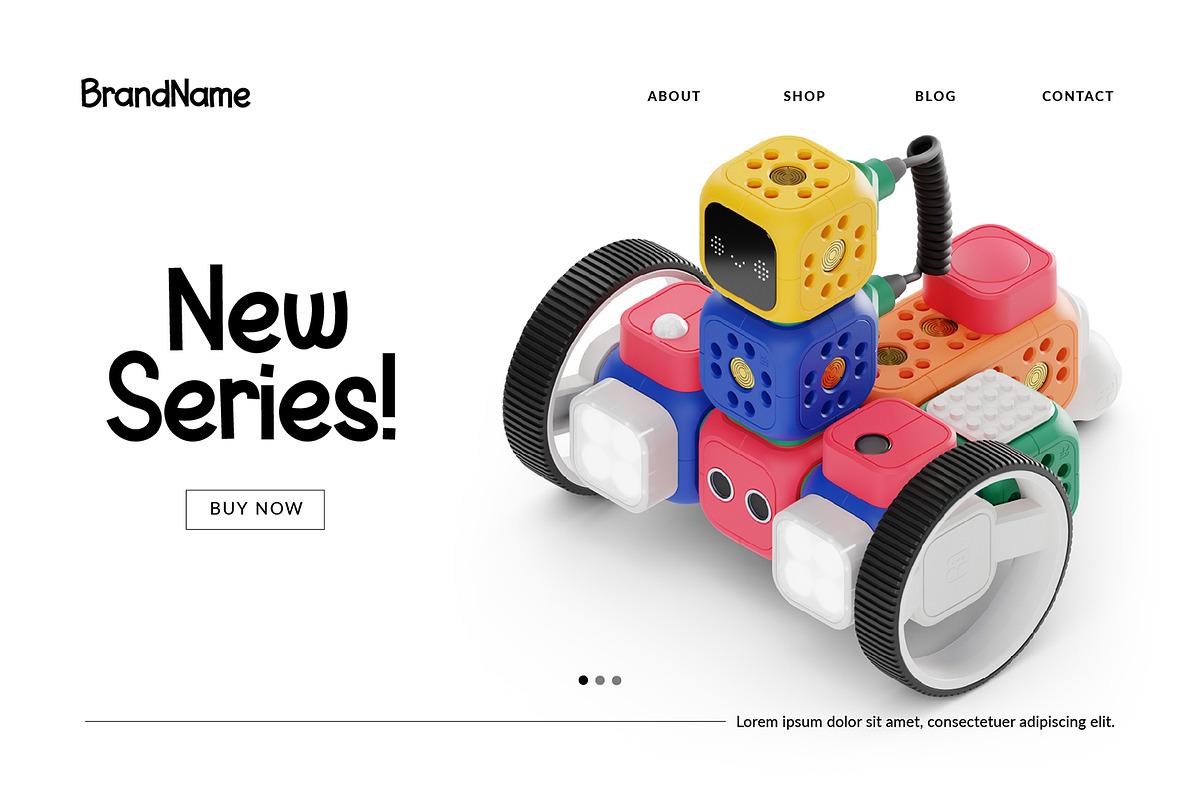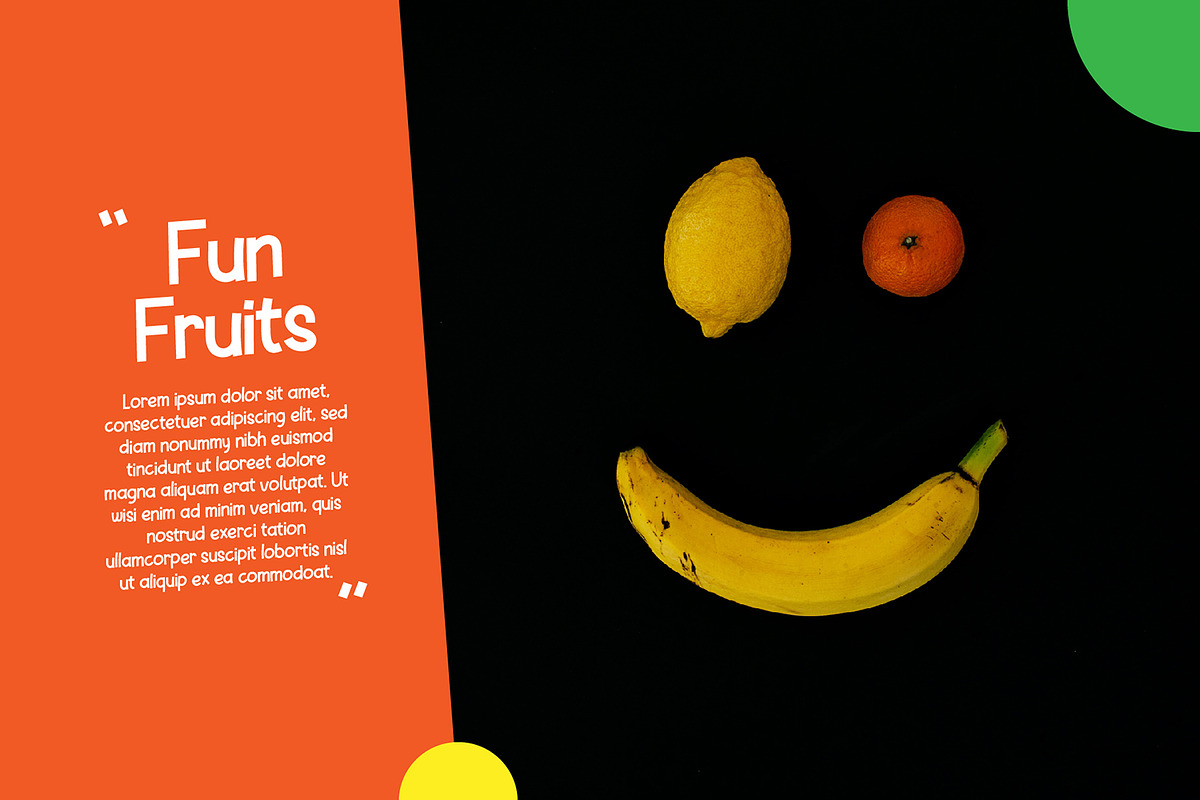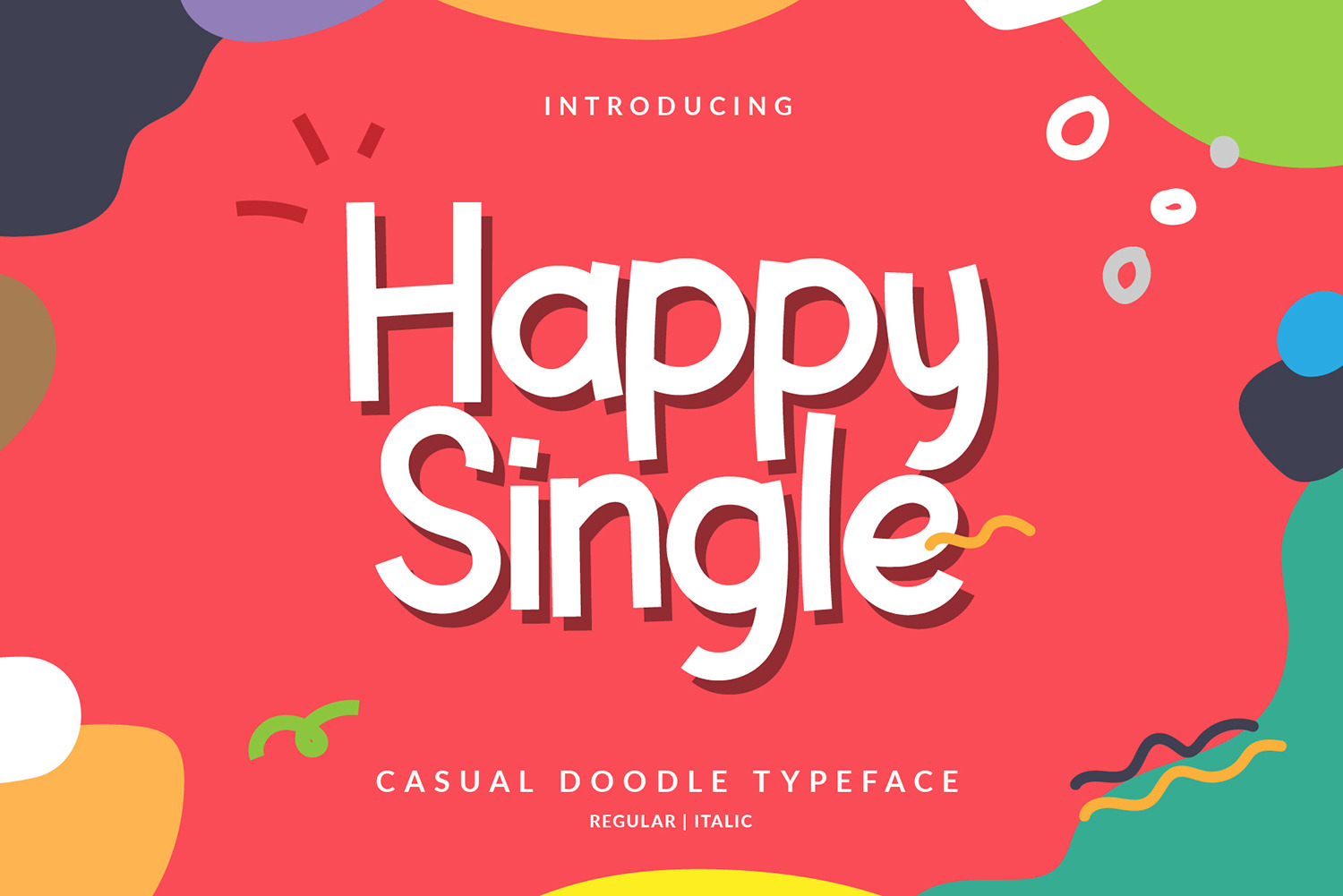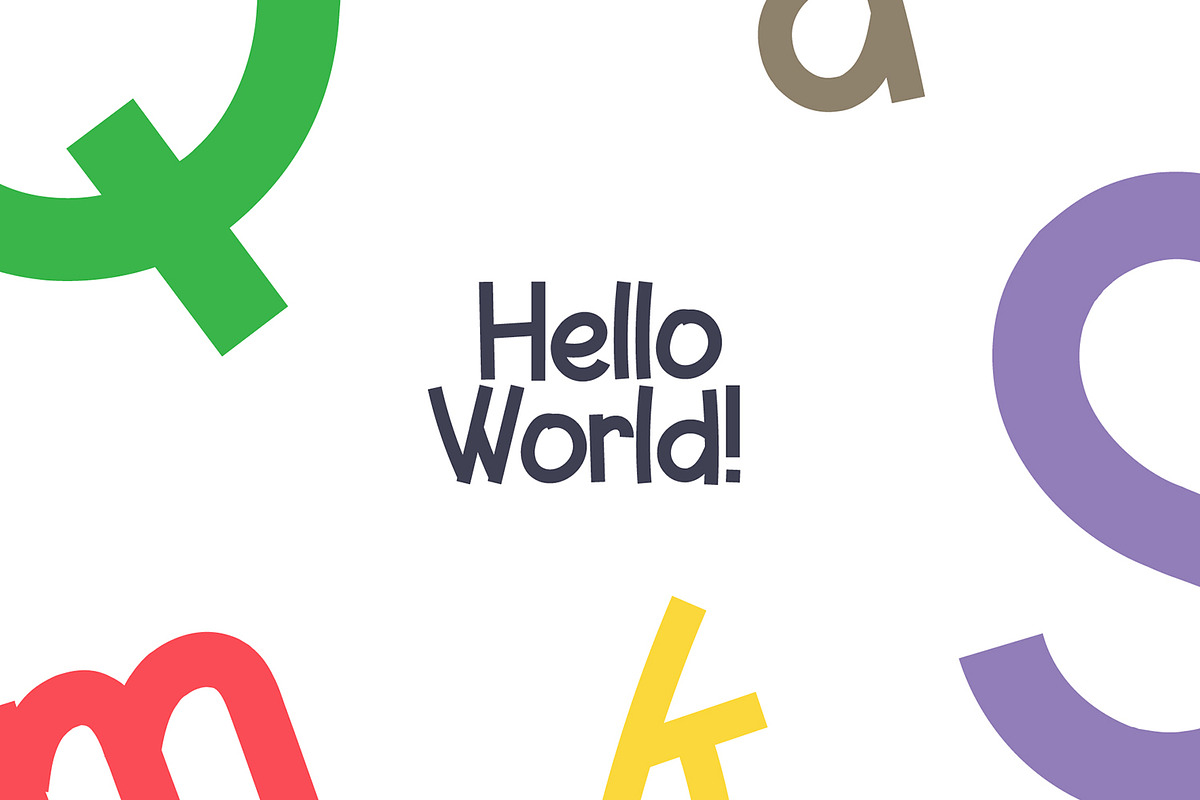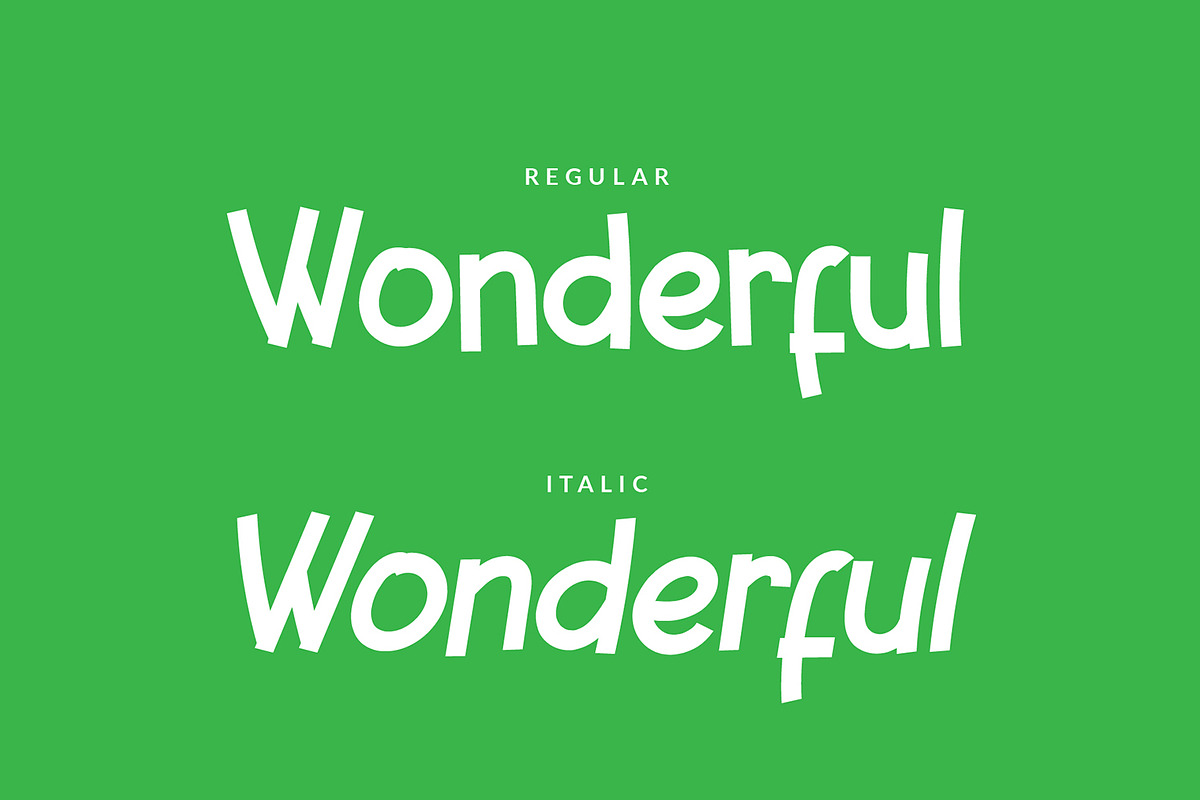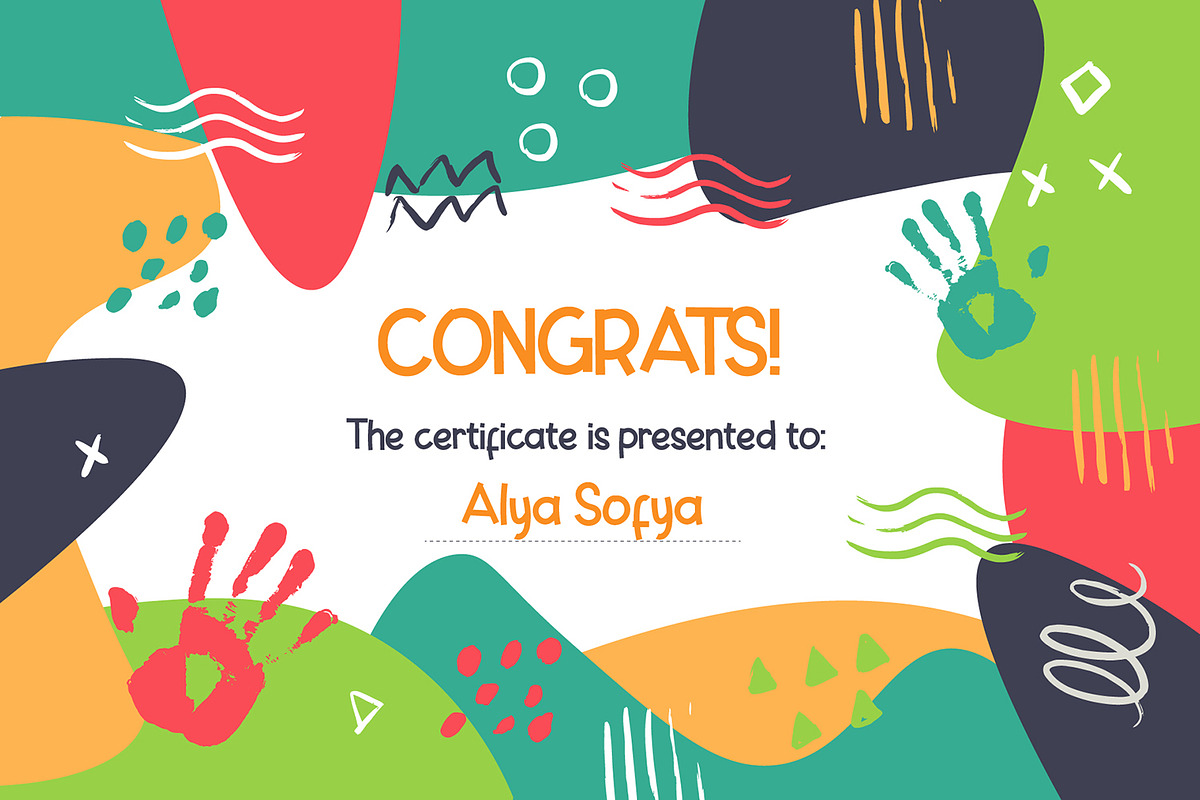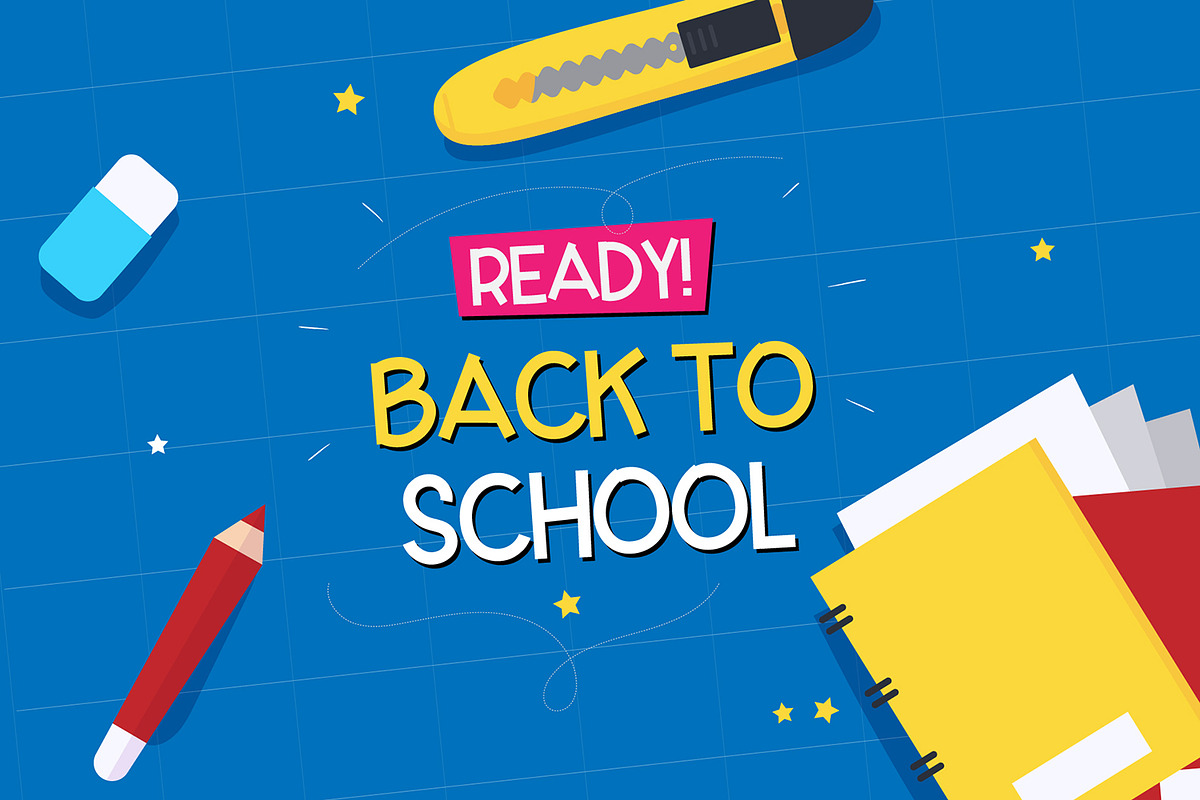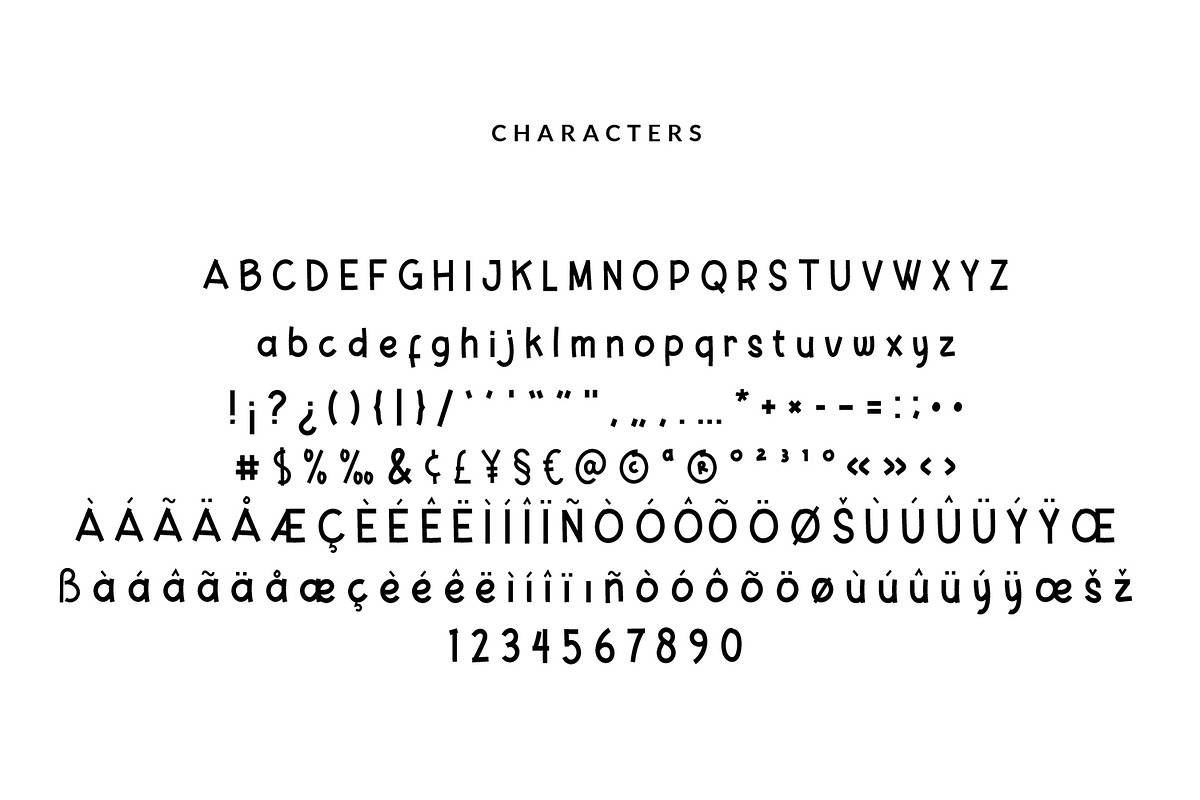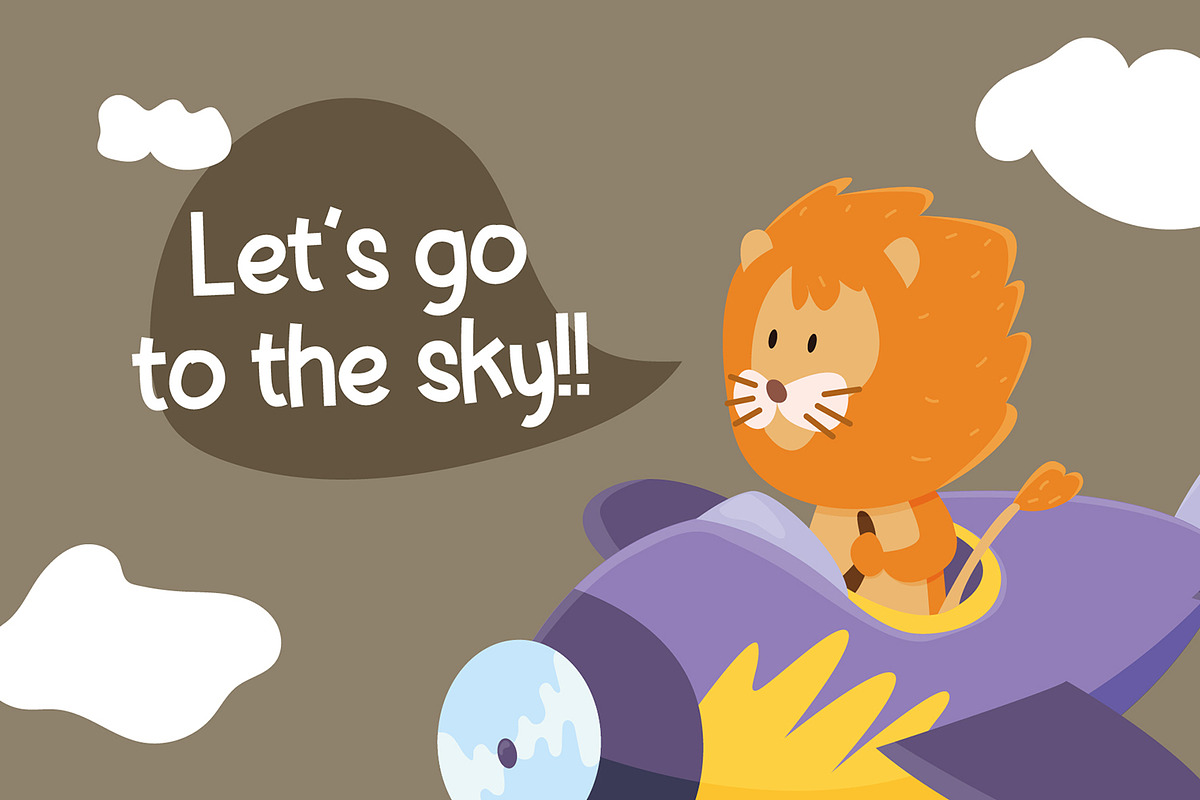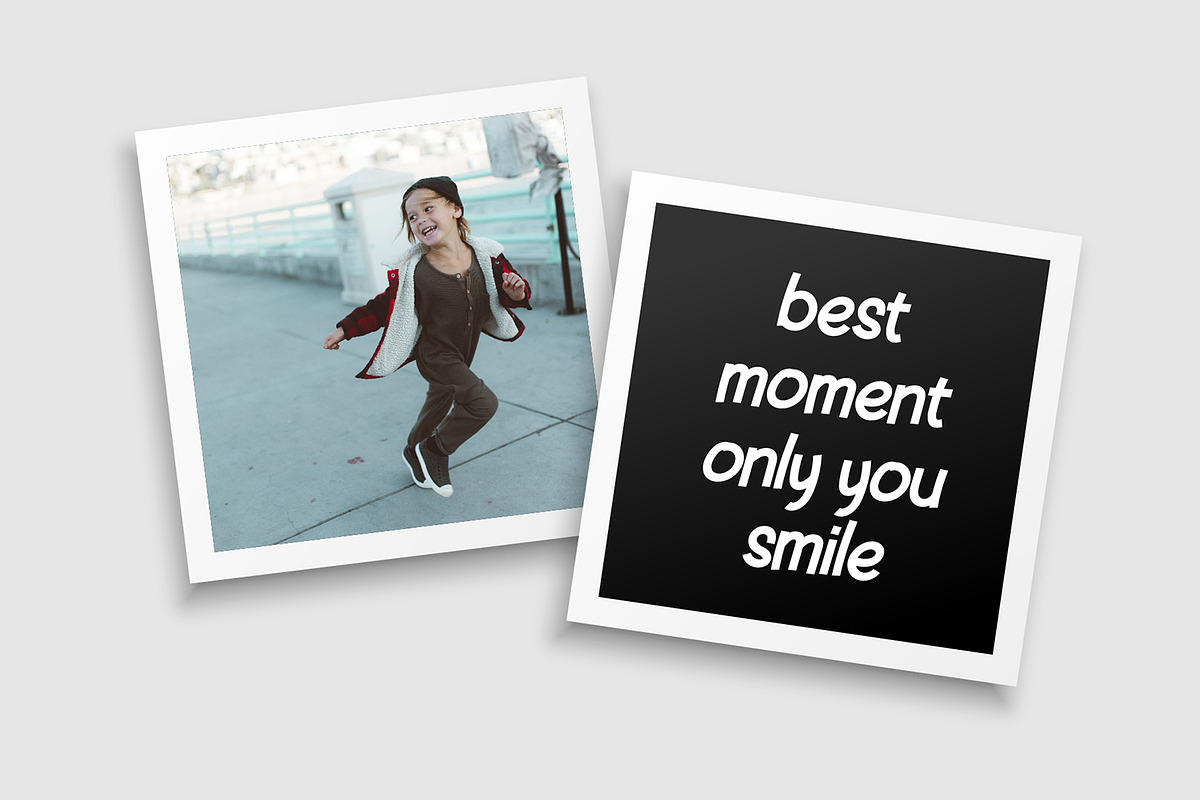
Happy Single Cute Font
Happy Single is a casual doodle typeface/font designed with carefully handcrafted. This perfectly made to be applied in logo or branding, stationery, books, packaging, fashion, magazines, t-shirt, greeting or wedding cards, vintage design, novels, labels and many advertising purposes.